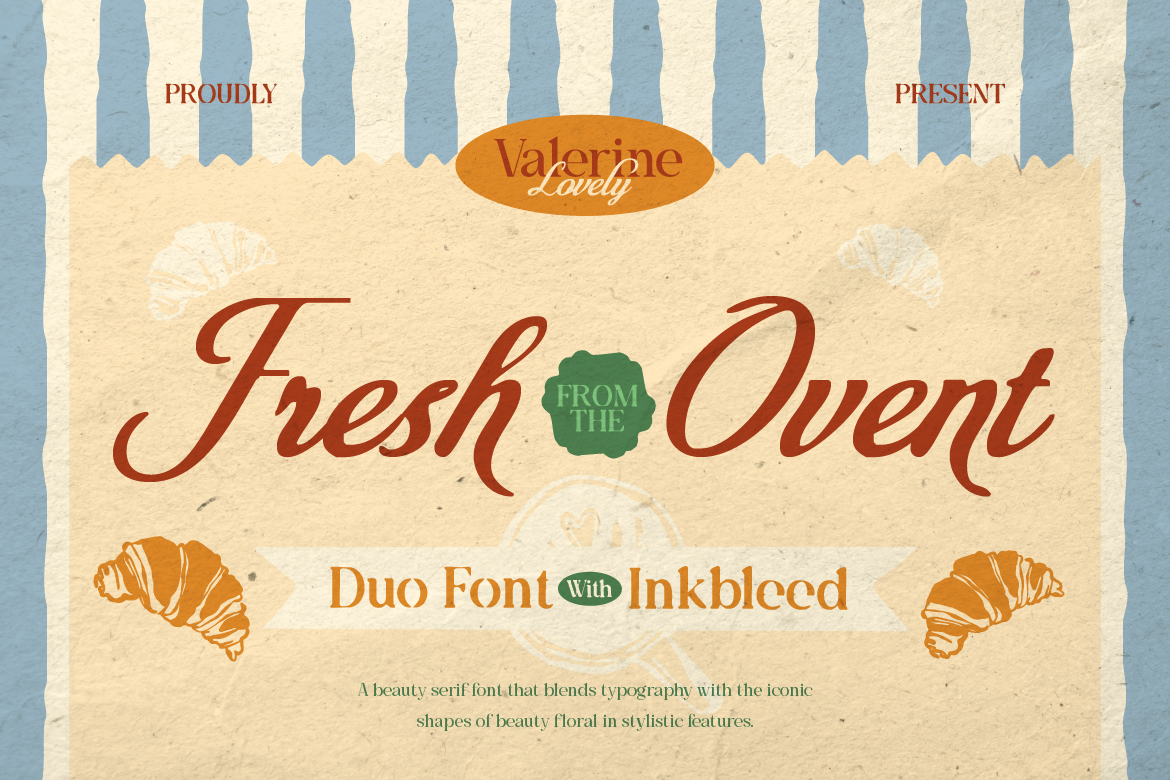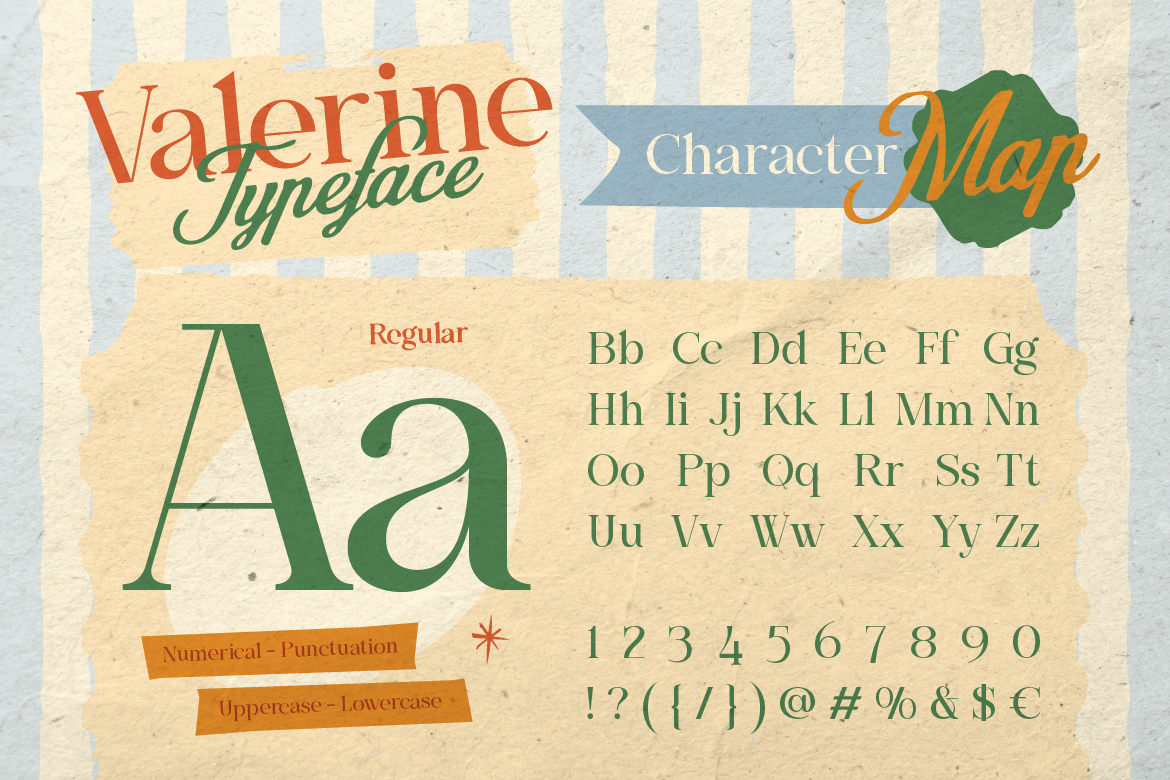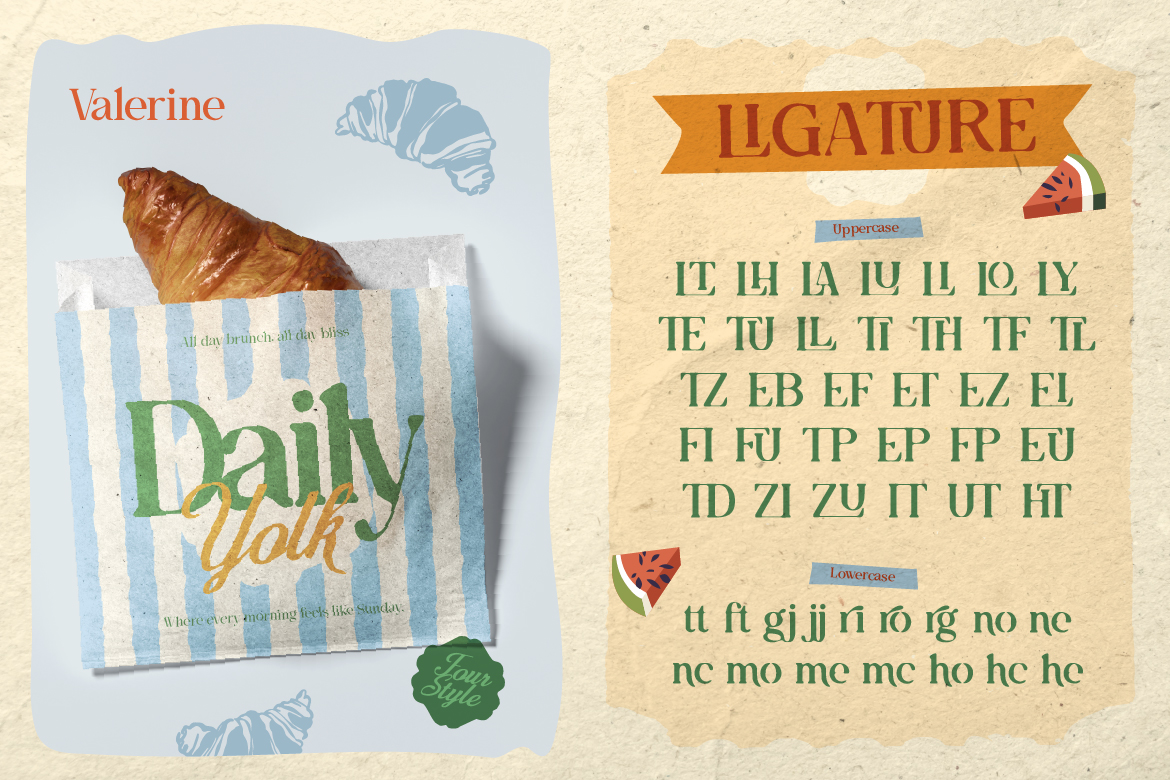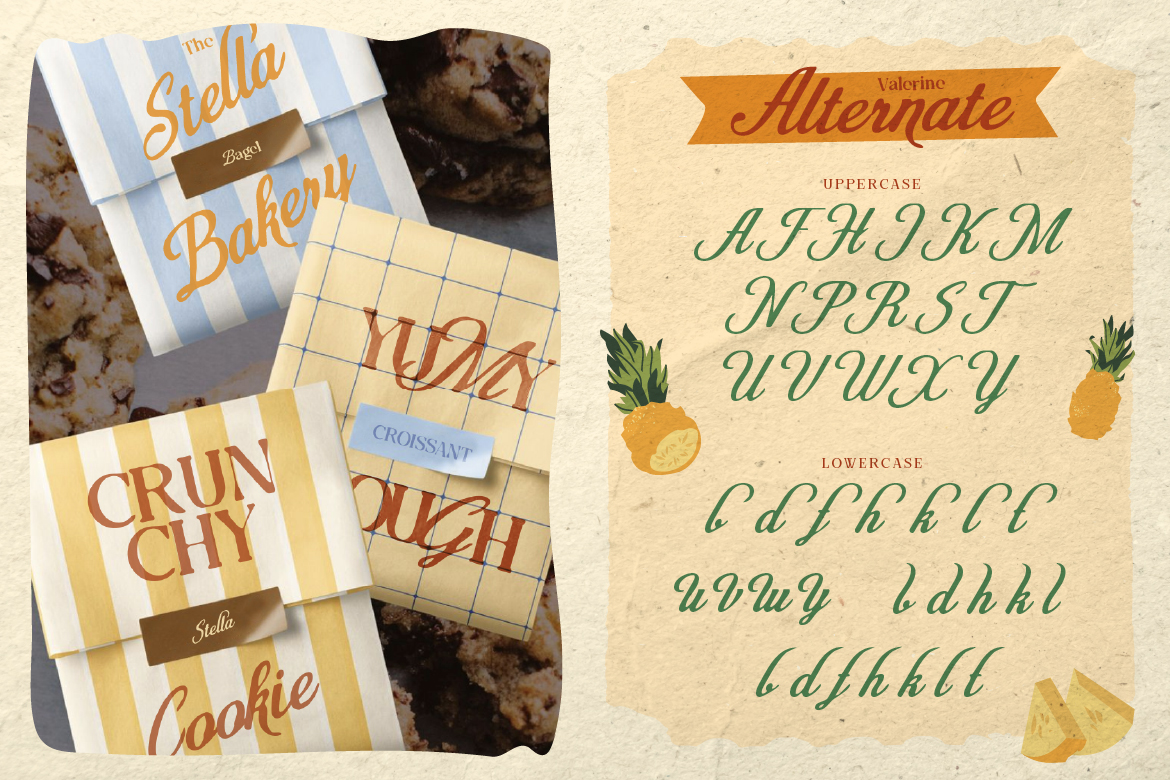
- Classic - Elegant
- Valerine
Valerine is a well-balanced duo font that combines a clean, elegant serif with a smooth and expressive script. Designed with strong attention to letterform details, this typeface offers a refined contrast between structure and flow—making it highly versatile for various design needs.
The serif features sharp, classic proportions with a modern touch, delivering excellent readability while still maintaining a distinctive personality. Its clean strokes and subtle curves make it suitable for both headlines and body-sized display text.
The script font complements the serif with natural, fluid strokes and consistent rhythm. It feels handwritten yet controlled, allowing for smooth connections and a polished look across words and phrases.
To enhance its character, Valerine also includes an inkbleed version, adding slight texture to the edges of each letter. This gives designers the option to create a more organic and less digital appearance without sacrificing clarity.
- Alternate
- Ligature